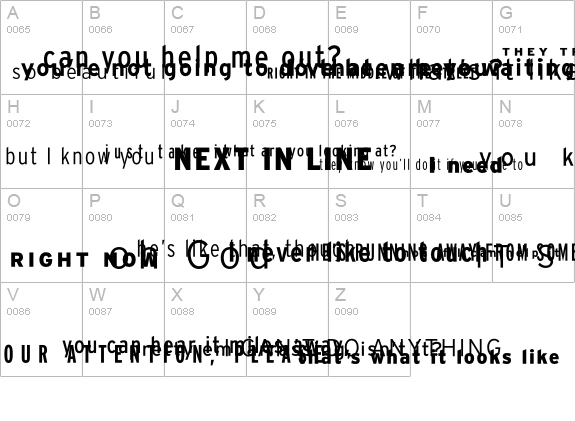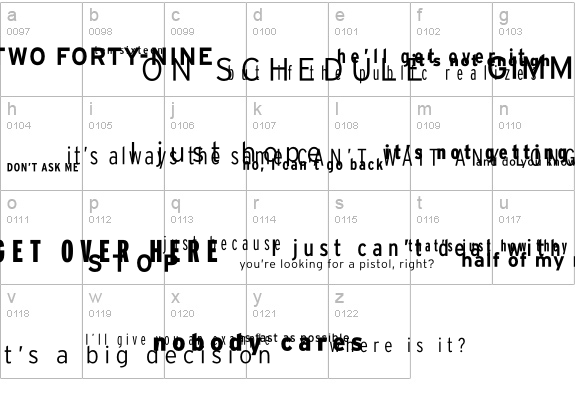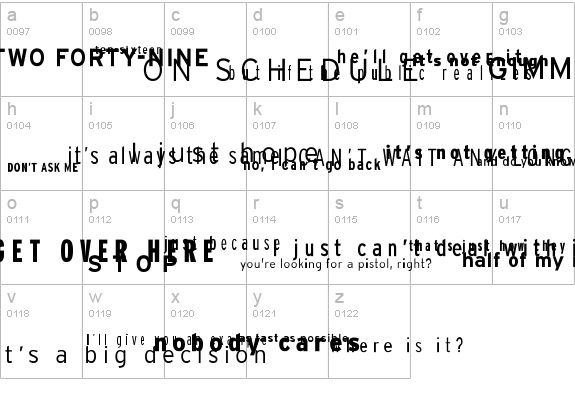
Microphone Font Details
Microphone font is a bold and stylish typeface that exudes a sense of modernity and sophistication. Its sleek lines and unique design make it perfect for a variety of creative projects, from branding to marketing materials. The Microphone font is versatile and can be used for both headers and body text, adding a touch of flair to any design. What's even better is that Microphone font is available for free download at FontsMarket.com. This means you can easily access and use this striking font without any cost, making it a valuable addition to your font collection. Don't miss out on the opportunity to enhance your projects with the Microphone font today!